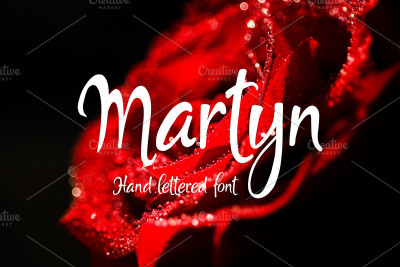
Martyn Font
Martyn stands out as a reliable typeface choice for designers seeking clarity without sacrificing character.
Its proportions suit a wide range of uses: website headers, printed flyers, restaurant menus, annual reports, and product packaging.